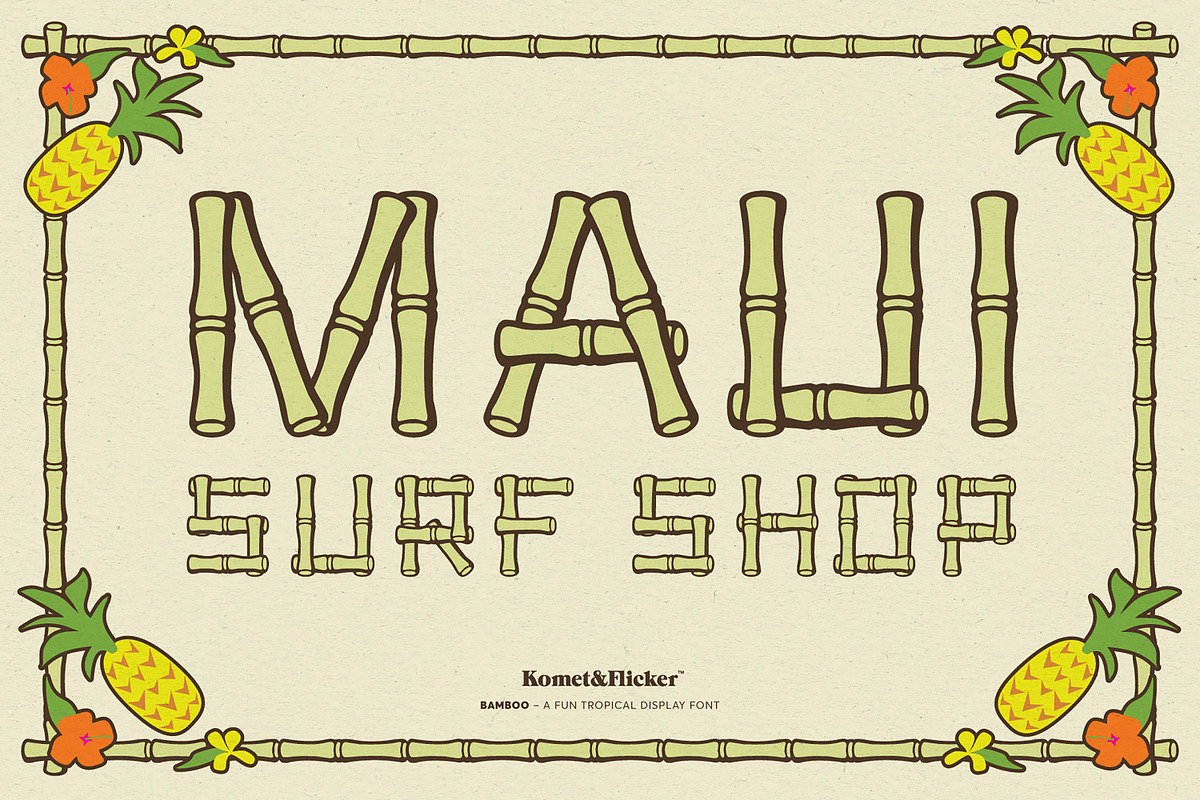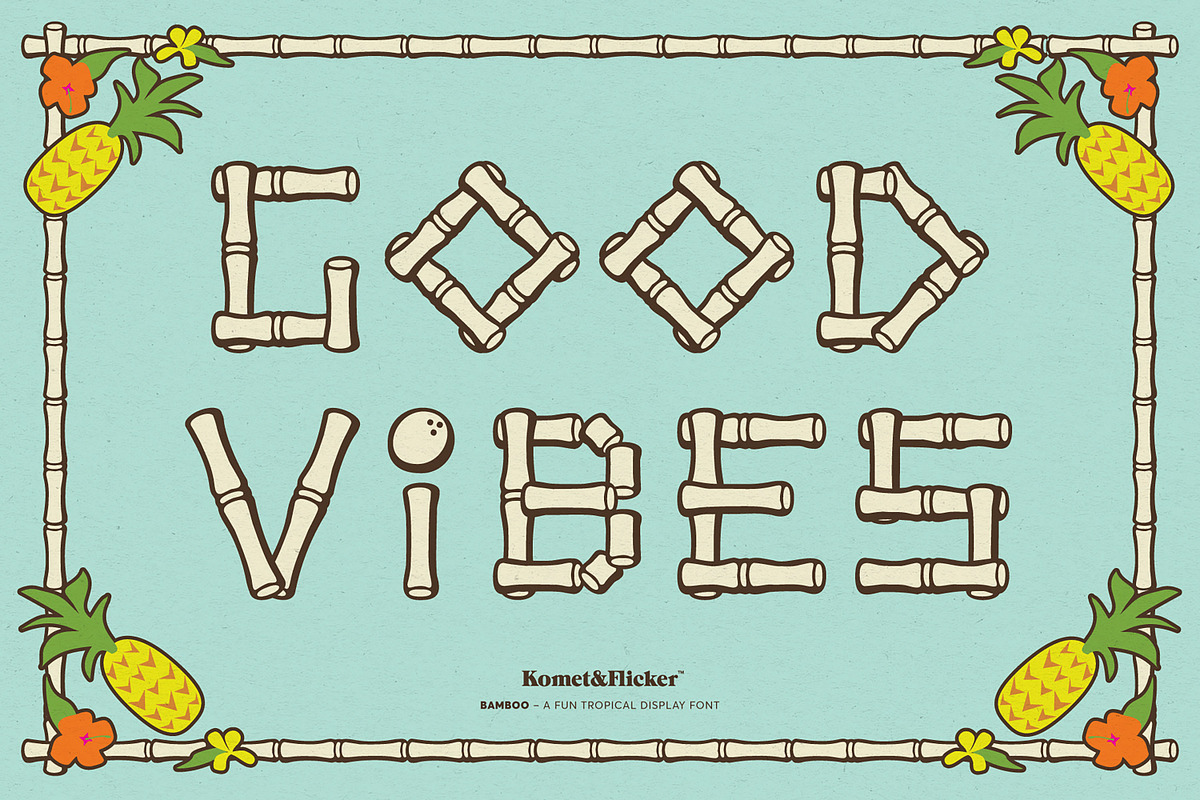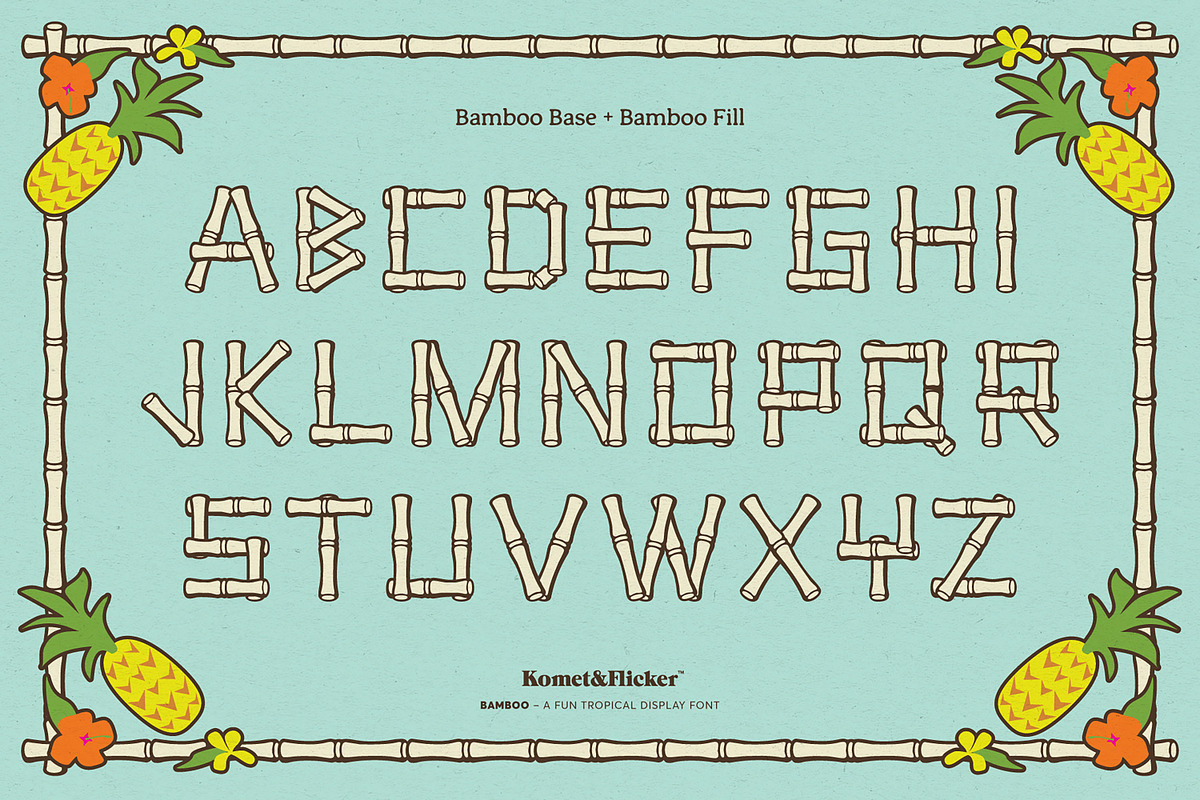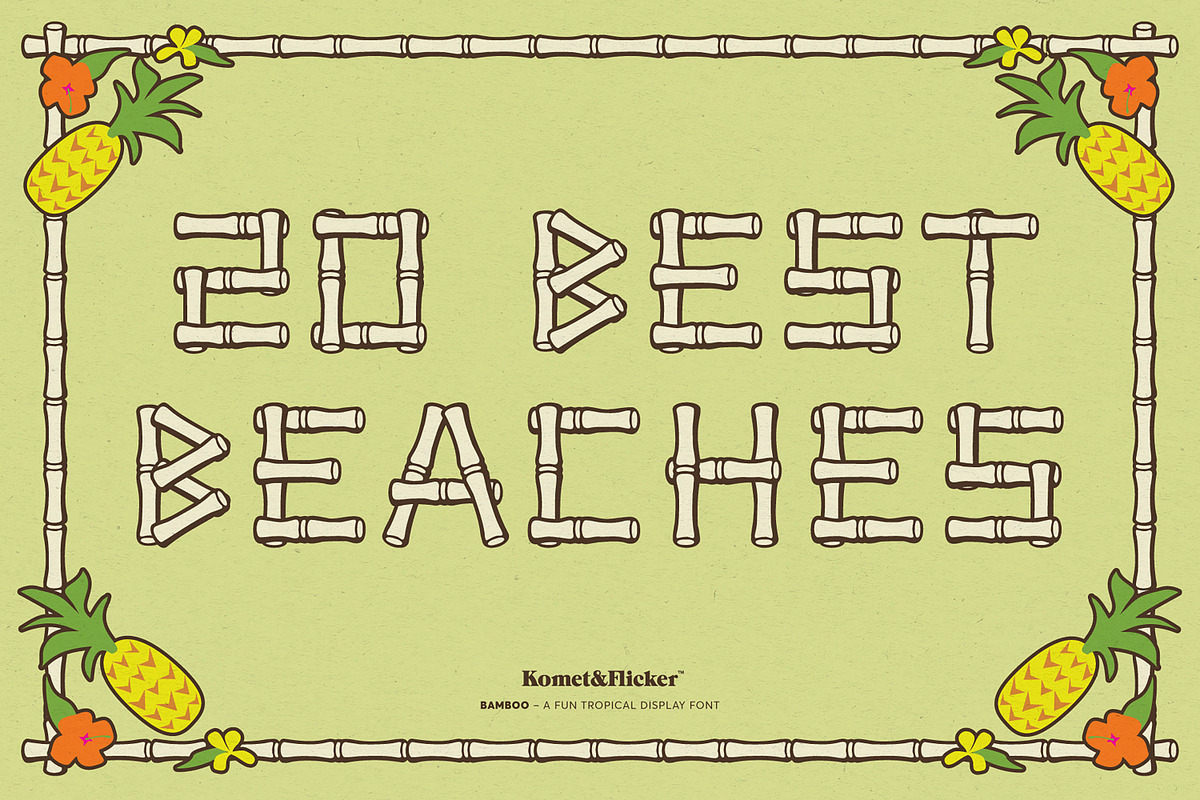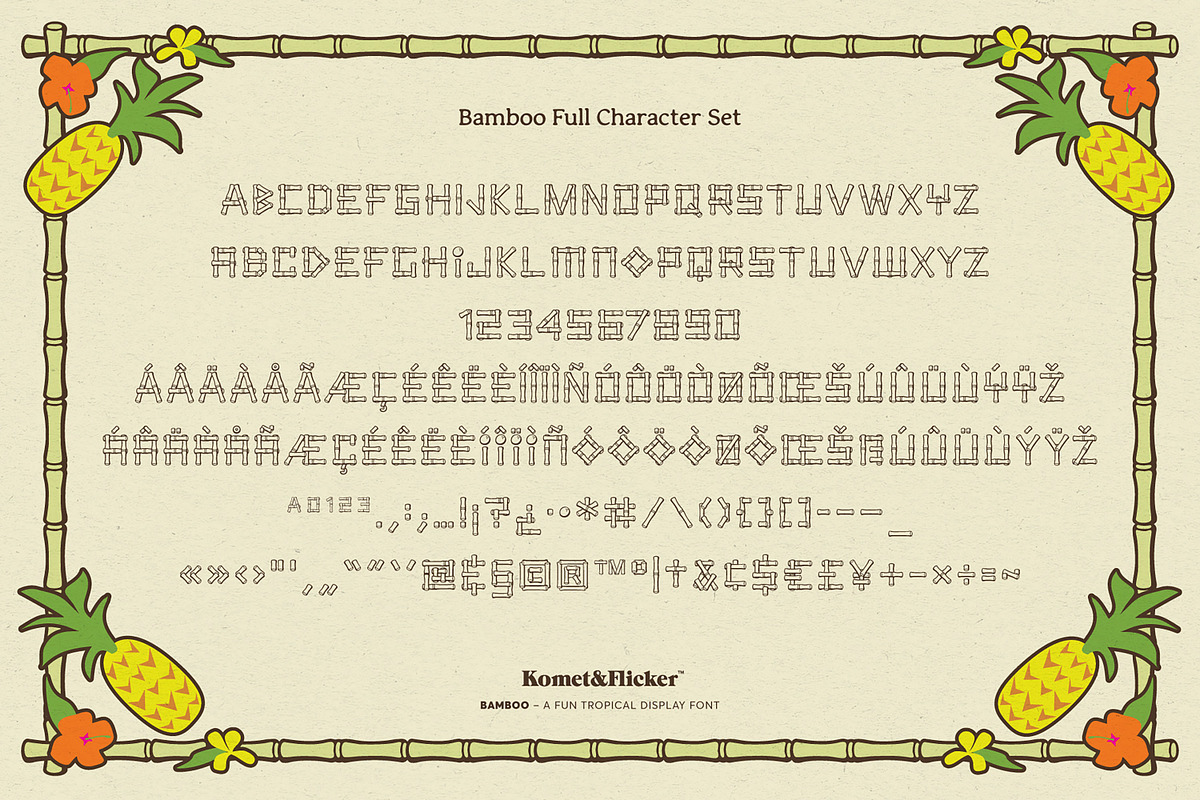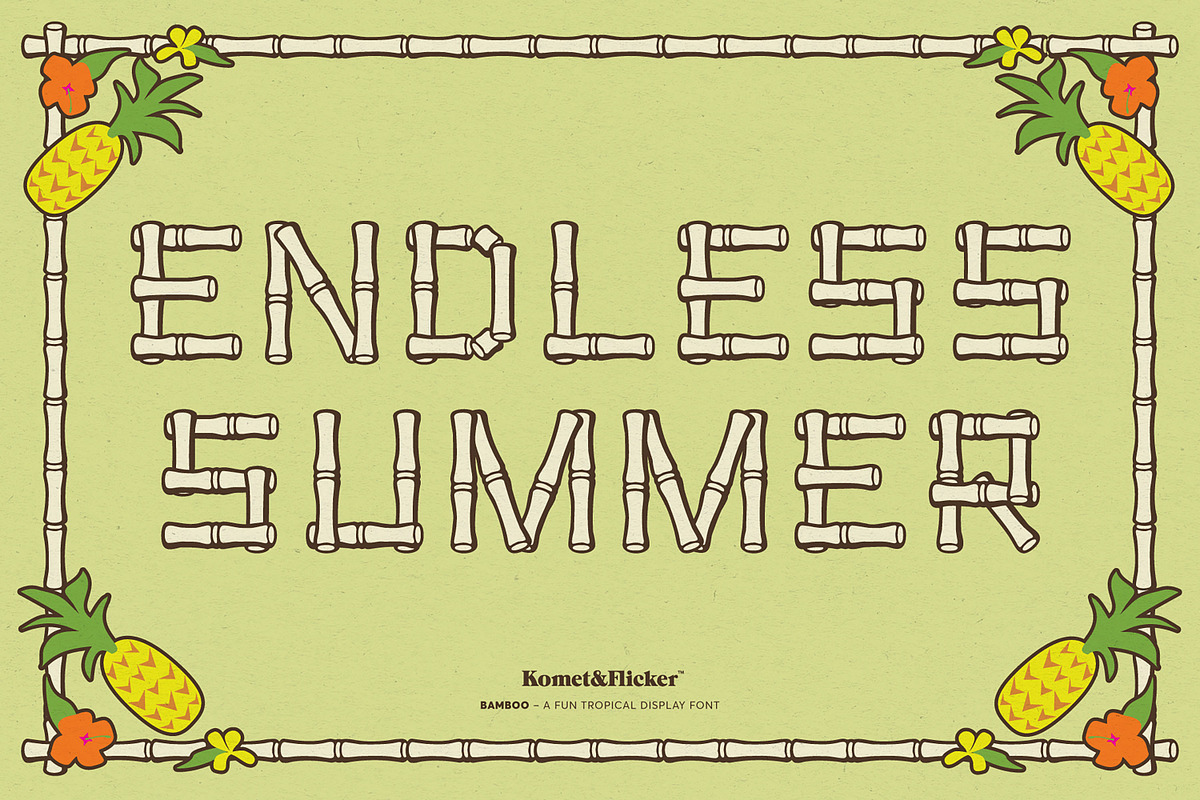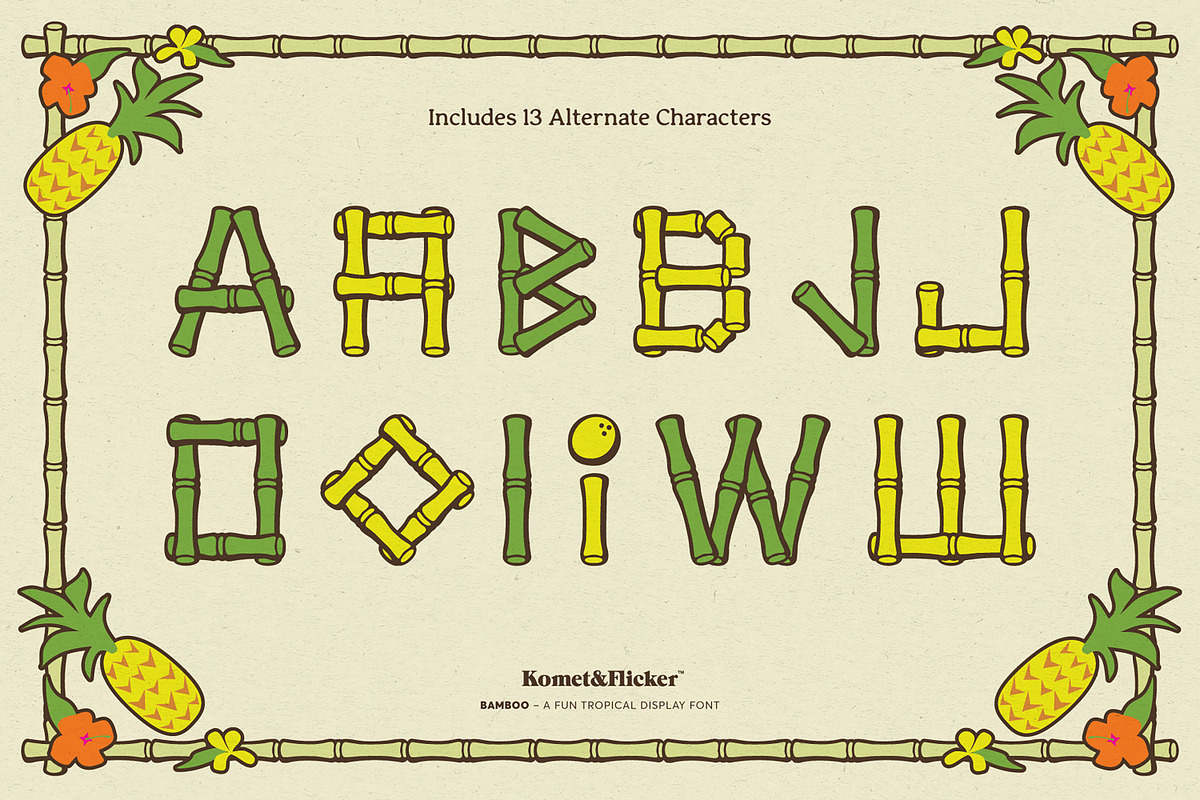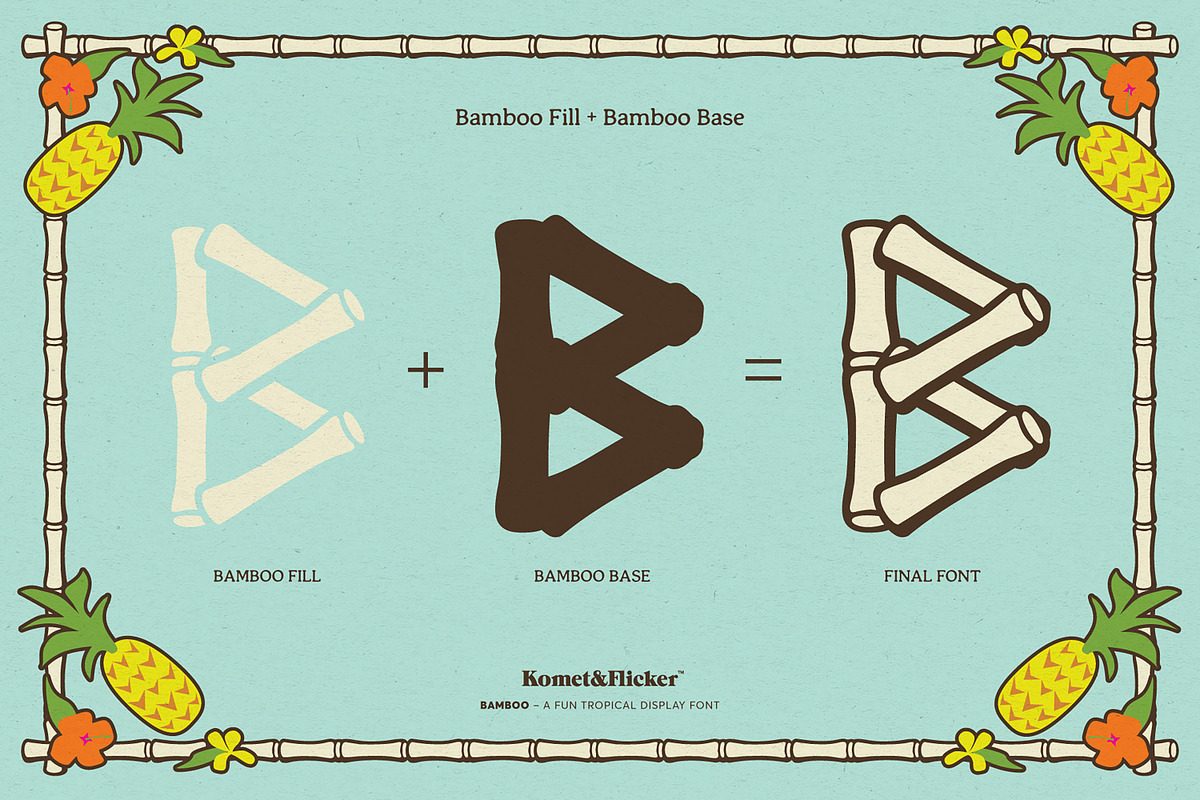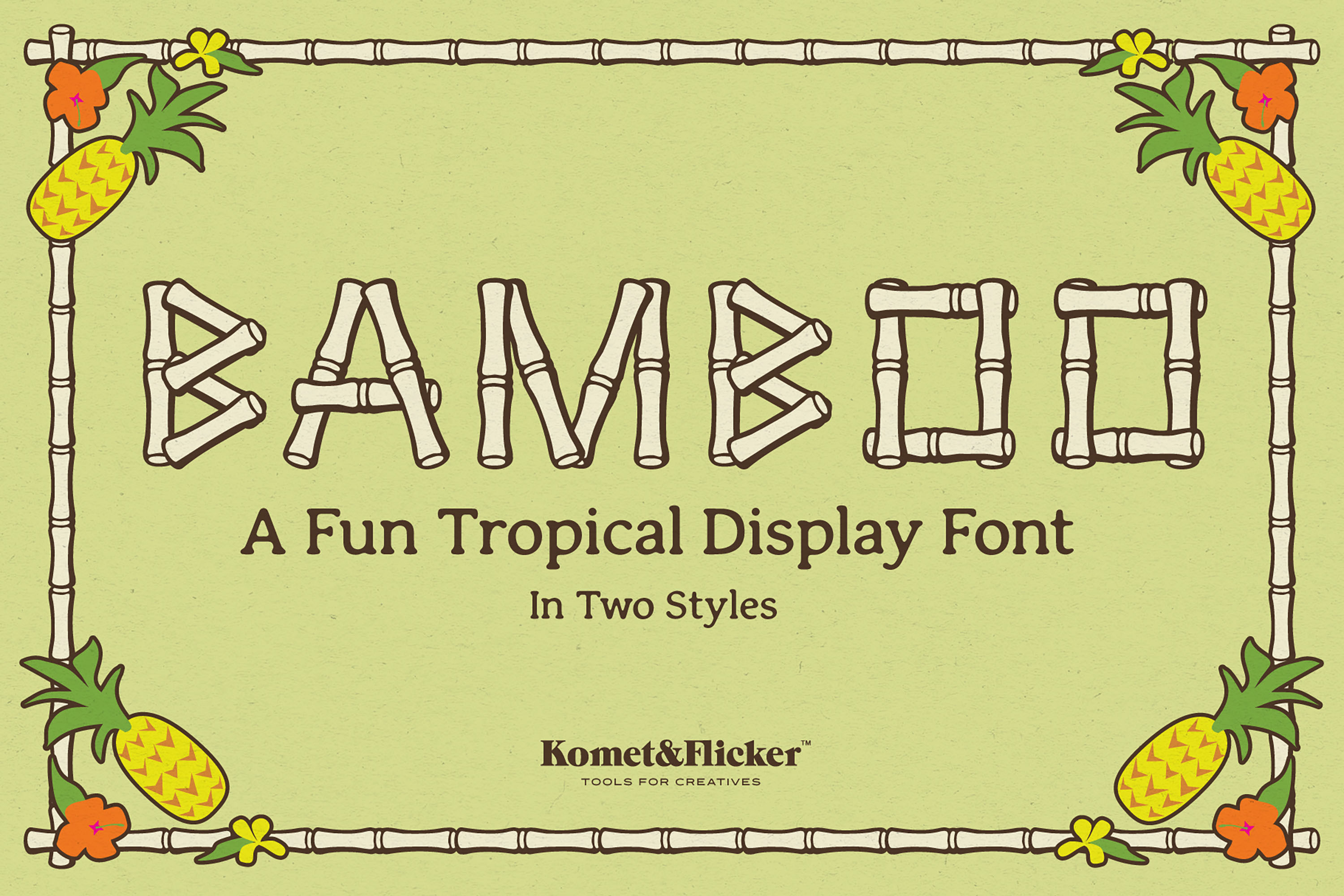
Bamboo - A Fun Tropical Display Font
Escape to a tropical paradise with Bamboo, a font that brings the essence of lush, sun-drenched islands right to your designs. Perfect for travel brochures, beach-themed events, or any project in need of a hint of exotic charm, Bamboo adds a touch of playful sophistication with its fluid, organic lines.
Infuse your designs with the refreshing energy of the tropics. Let Bamboo transport your audience to a serene island getaway, where every letter carries the warm embrace of paradise.
THIS FONT COMES IN TWO STYLES
Bamboo Regular
Bamboo Fill + Base (together they create a single style)
Full A-Z uppercase basic latin characters
Select European specific characters
Numbers, punctuation, and select symbols
Please note: Bamboo Fill and Bamboo Base are two separate fonts but together create a single style.